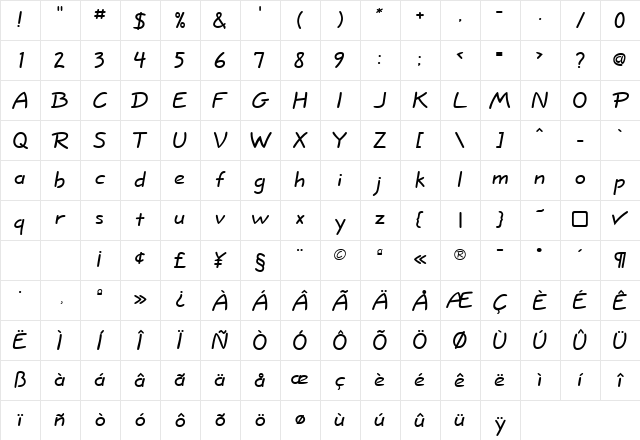
Wapping DB Regular
Complete Wapping DB Regular glyph index. Displaying only characters natively supported by Wapping DB Regular font.
Design Context for Wapping DB
Wapping DB is a composed and adaptable typeface that performs quietly and consistently across a wide range of design contexts.